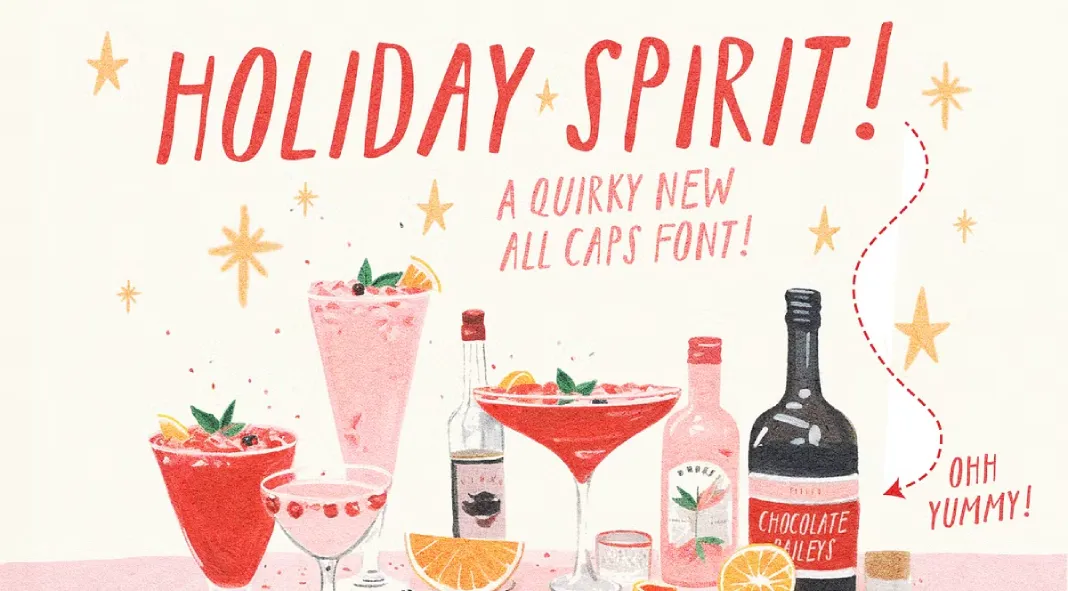
Holiday Spirit is the Quirky Lettering That’s Ready for Christmas (and More!)
You know how some fonts just feel right? It’s like they have a personality. That’s Holiday Spirit. Created by Nicky Laatz, it’s definitely not your stiff, corporate typeface. It’s like the cool friend who shows up with mismatched socks and a contagious laugh.
Think of it this way: If fonts were people, Holiday Spirit would be the one who’s always up for a game and doesn’t take themselves too seriously. Can you picture that?
It’s an all-caps font, which might make you think it’s shouting. But no, not at all! It’s got this casual, handwritten look that’s super approachable. It’s anything but perfect, and that’s the beauty of it. Do you know how some things are better when they’re a little bit messy?
Now, Nicky didn’t just give us one version, oh no. There are two. You get the regular Holiday Spirit and then the “Wonky” version. The “Wonky” one? Well, it’s like the regular version got into a bit of mischief. It’s got just a little extra quirk, a little more bounce in its step.
And here’s a cool trick: the uppercase letters are a little different than the lowercase ones. Why did Nicky do that, you ask? It lets you mix and match. You can use caps for some words and lowercase for others, and it makes your text look even more authentic like someone actually wrote it by hand. Isn’t that neat?
What could you use it for? So many things! Think about your Christmas cards. It would be amazing, wouldn’t it? It’s perfect for greetings, anything playful. You could use it for branding, especially if you want a fun, approachable vibe. Labels? Yup. Illustrative work? Absolutely! Anything that needs a little bit of that cheeky “quirk” we talked about earlier is a perfect fit for Holiday Spirit.
So, are you ready to add a dash of fun to your next project? Holiday Spirit isn’t about perfection; it’s about personality. It’s about embracing the little flaws that make things interesting. Do you think that’s something you need in your life right now?